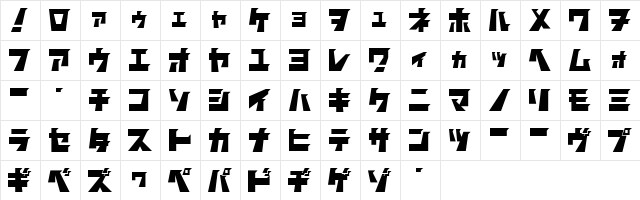
I2ComBaler Regular Font Preview
I2ComBaler Regular
Design Context for I2ComBa�ler Typeface
I2ComBa�ler is a composed and adaptable typeface that performs quietly and consistently across a wide range of design contexts.